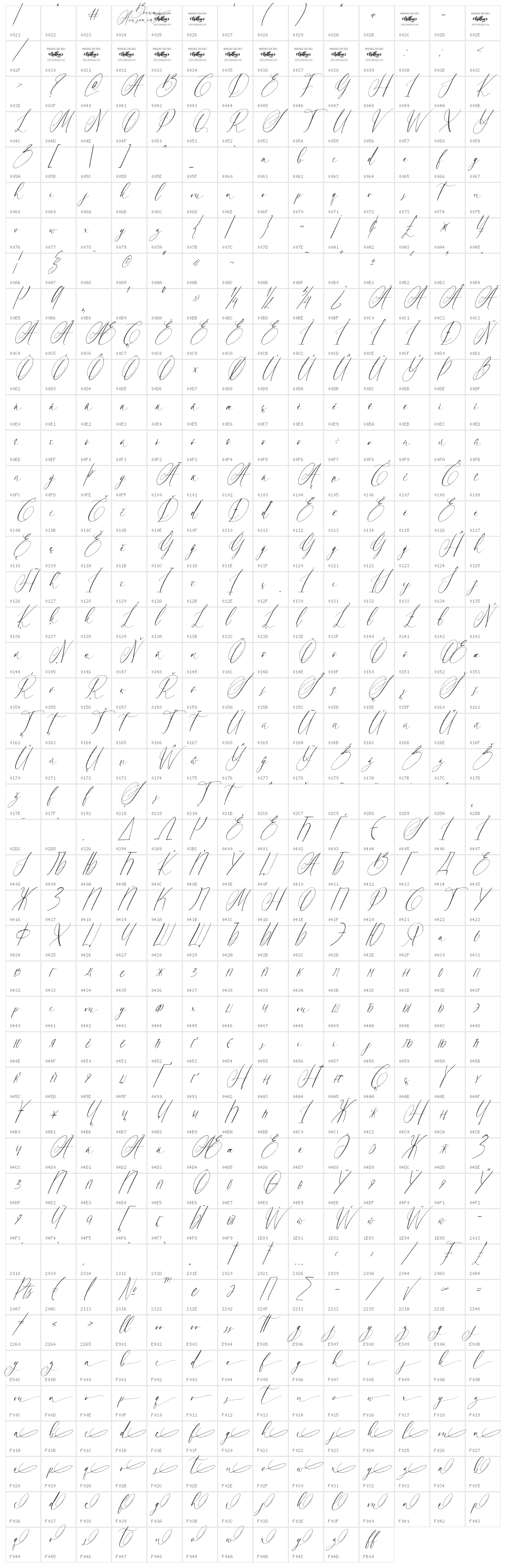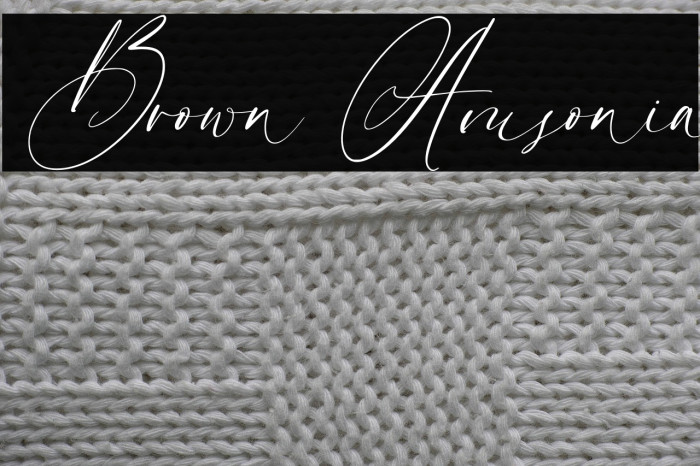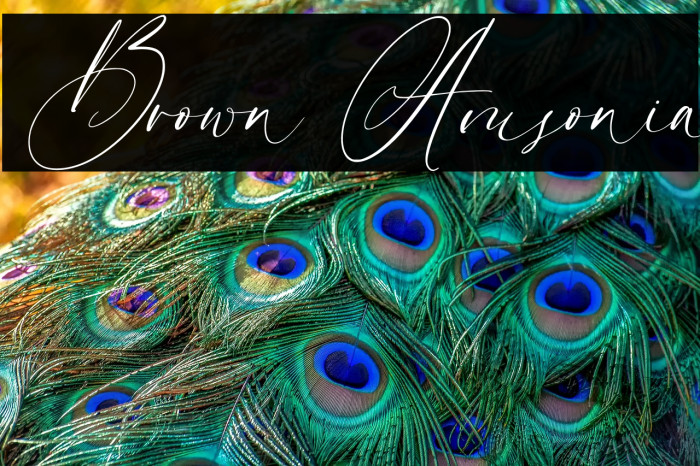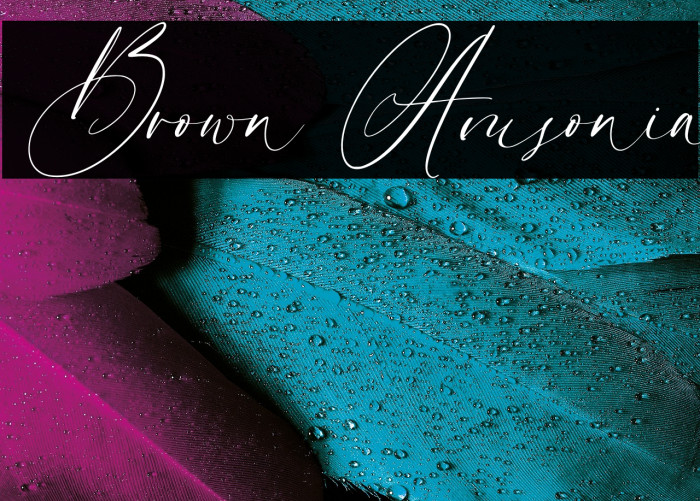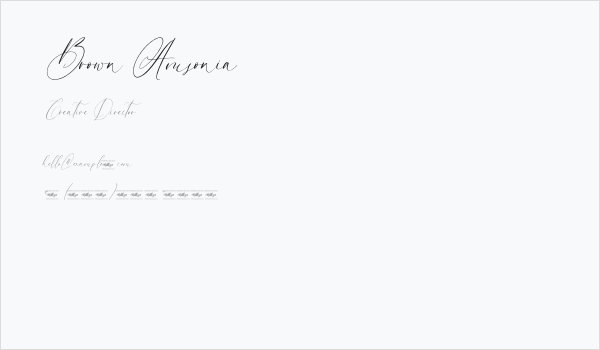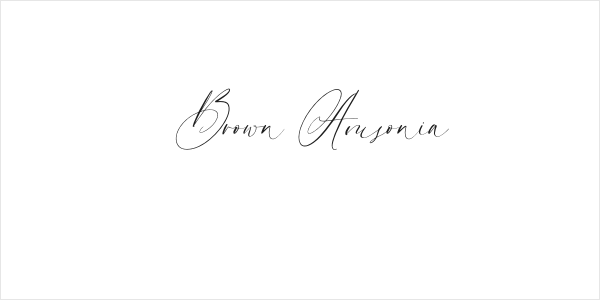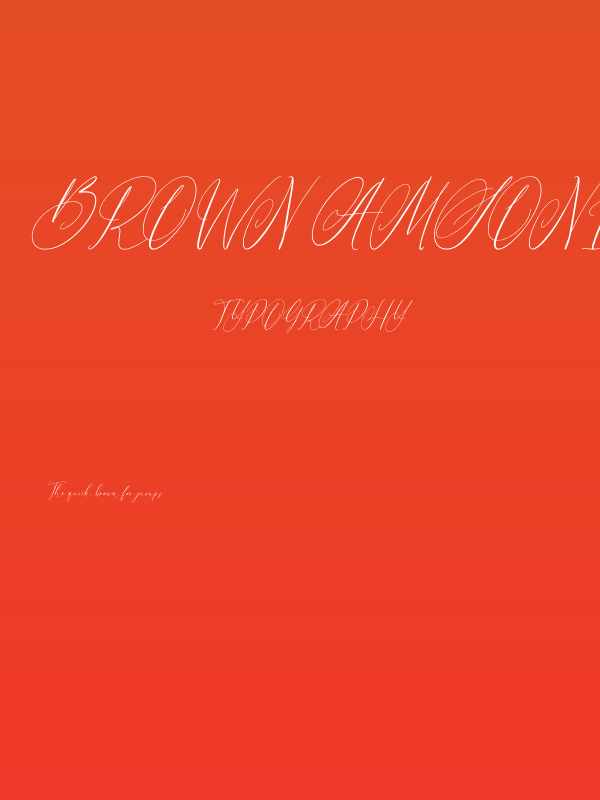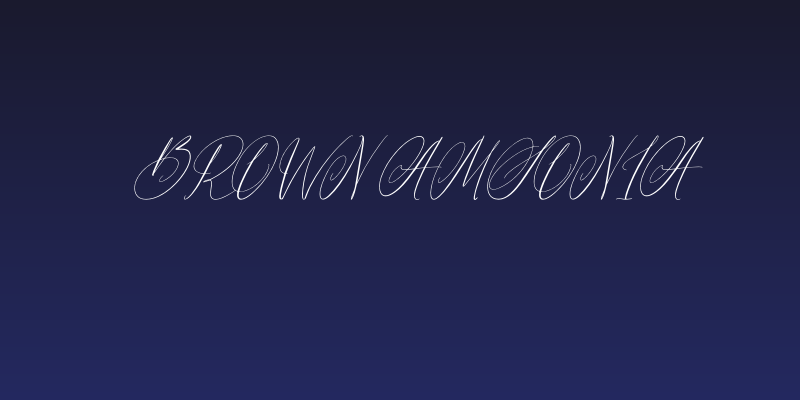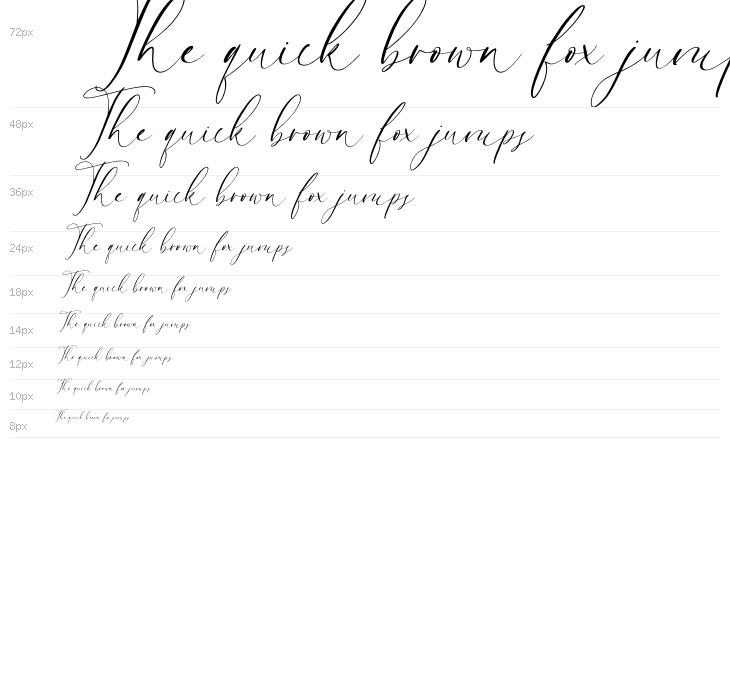
Brown Amsonia Font
Brown Amsonia Description
A flowing, elegant script font with high contrast and decorative flourishes, suitable for formal invitations and artistic designs.
| Use Case | Logos, Invitations, Artistic designs |
| Proposed Projects | Wedding invitations, greeting cards, artistic projects. |